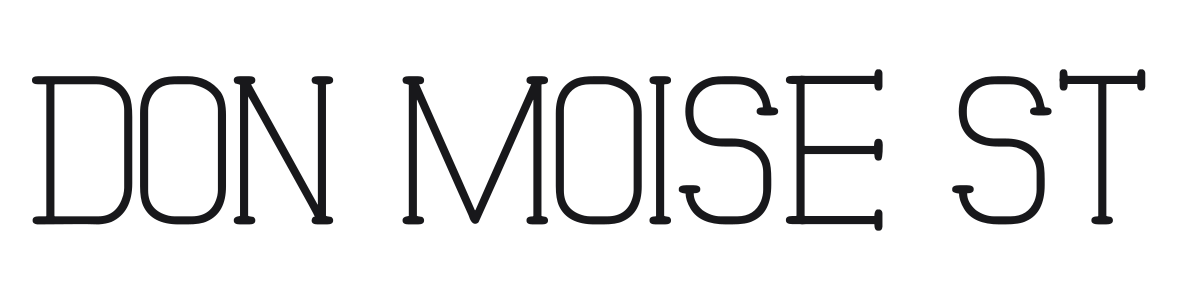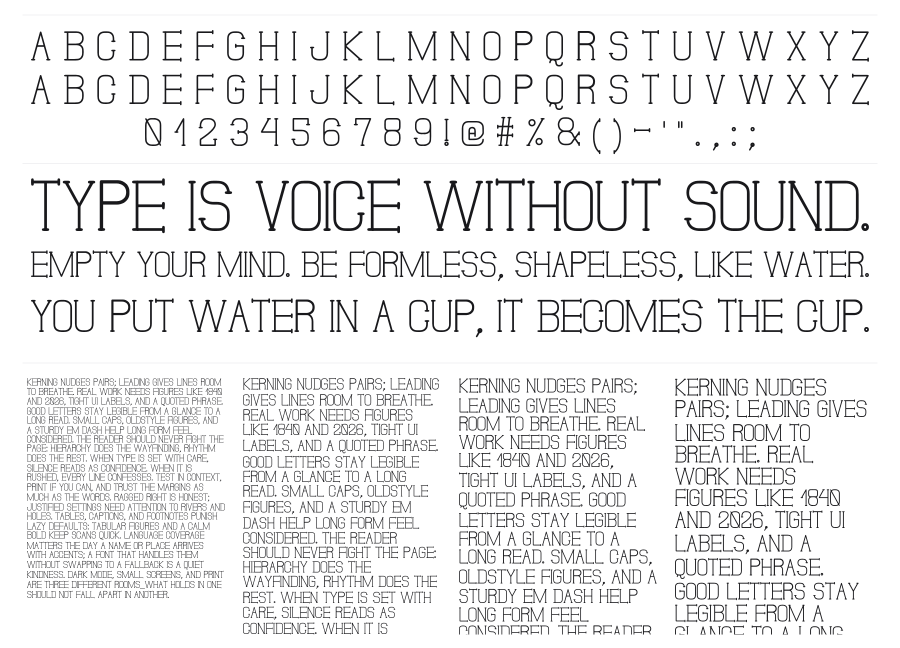
Don Moise St
Don Moise St is a tall, condensed thin serif with a clean Art Deco geometry and near-monoweight strokes. Flat, hairline serifs sit precisely at each terminal, giving it a structured, architectural quality without heaviness. It carries the kind of quiet elegance that works well in fashion editorial, logotypes, and headline settings.